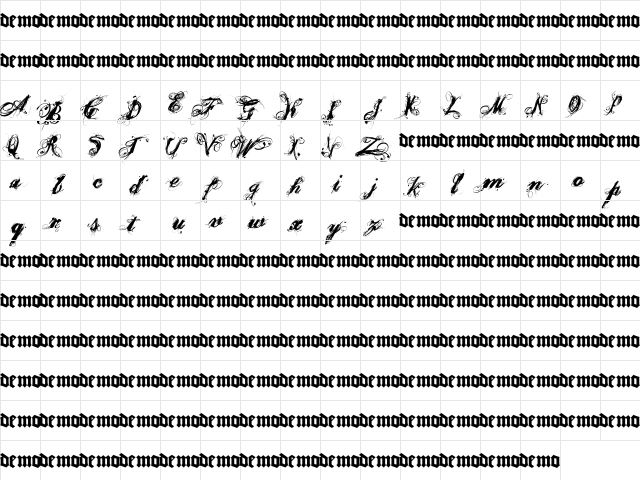
Poesie_Noire Regular
Design Context for Poesie_Noire Typeface
Poesie_Noire is a composed and adaptable typeface that performs quietly and consistently across a wide range of design contexts.